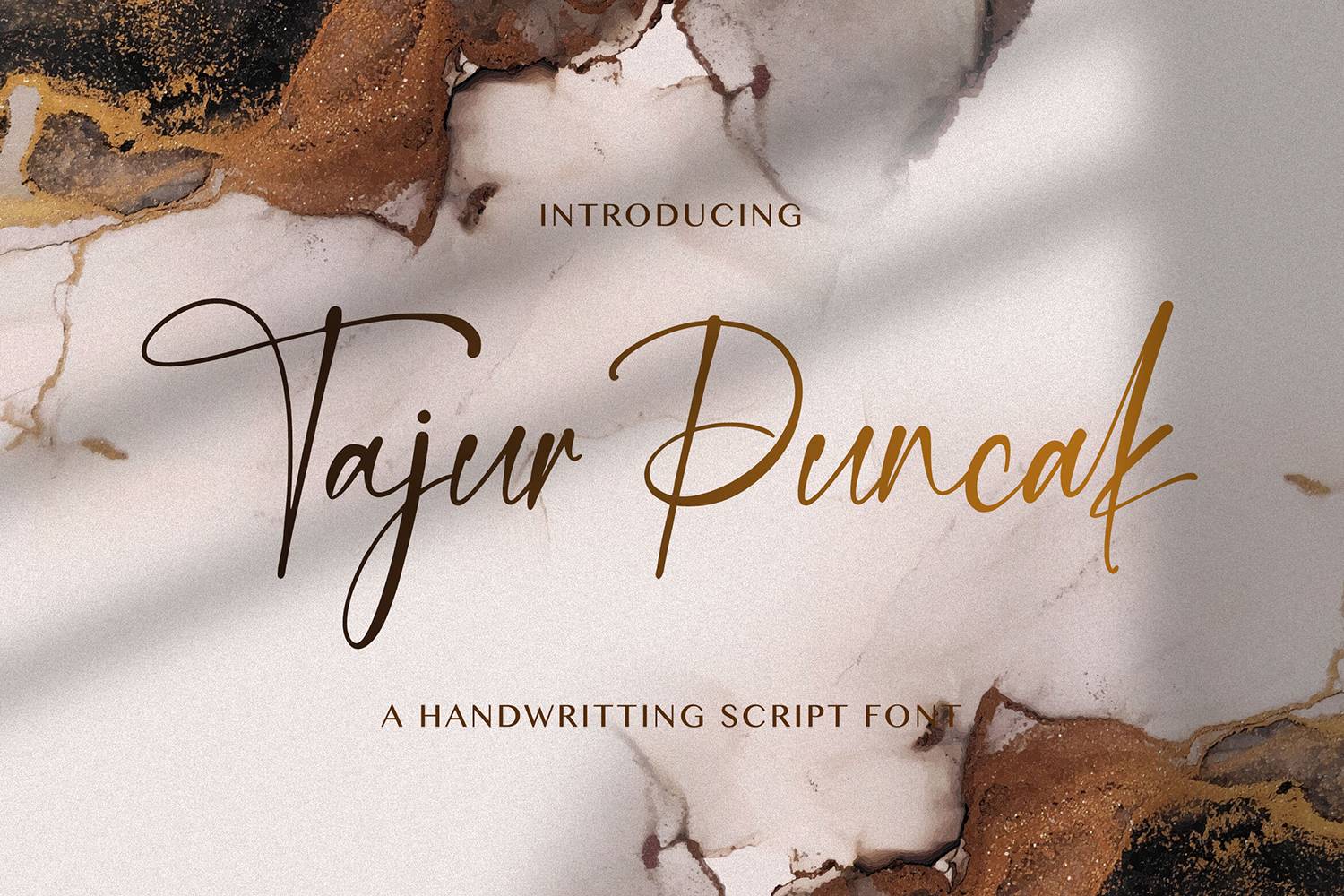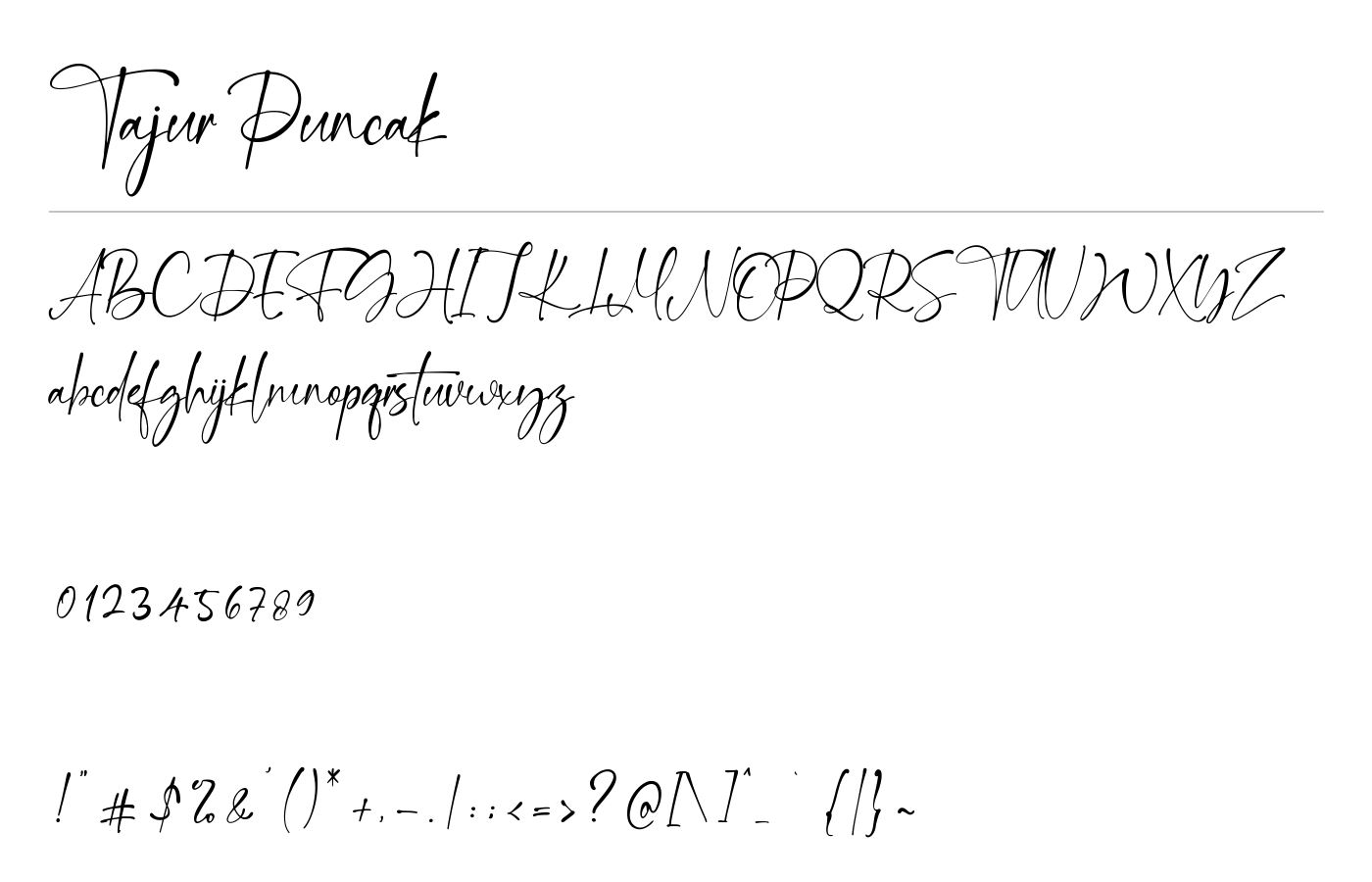
Tajur Puncak is a delicate and elegant script font with a modern handwritten style, featuring slender, flowing strokes and graceful swashes. Its narrow letterforms and high contrast between thick and thin lines create a refined yet lively feel, perfect for adding a personal, artistic touch to invitations, branding, and stylish logos. This font works best in decorative, headline, or display settings where a sophisticated and expressive atmosphere is desired.
Tajur Puncak Font
About Tajur Puncak Font